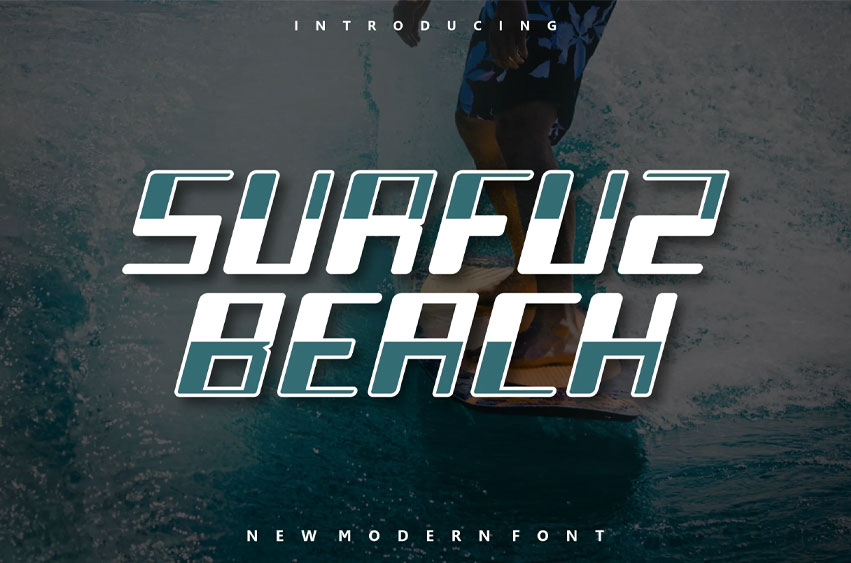
Surfuz Beach Font
Surfuz Beach Font Modern Font is a bold and authentic display font.
The font is suitable for any branding project like logo, t-shirt printing, esport, and many more. outstanding in a wide range of contexts.